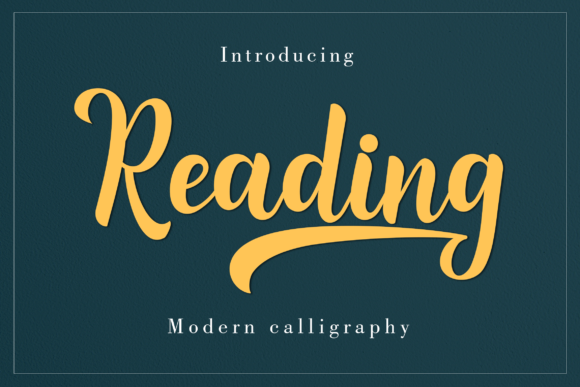
In a digital world bursting with text and imagery, the elegance of handwritten words can transport you to an era of profound beauty and heartfelt expression. Reading Script Font, a creation of Amarlettering, is an exquisite script font family that captures the essence of authenticity and transforms your creative projects into stunning masterpieces.
With its light and flowing curves, Reading Script Font evokes a sense of effortless grace and charm. Its delicate strokes and subtle imperfections lend an organic touch, reminiscent of the handwritten letters crafted with care and intention. Embrace the timeless beauty of cursive writing and let your words dance across the page, leaving a trail of elegance and sophistication in their wake.
Dive into the world of Reading Script Font and discover a symphony of visual delight. From whimsical invitations to heartfelt personal notes, from captivating social media posts to enchanting brand logos, this versatile font family adapts seamlessly to a myriad of creative endeavors. Unleash your imagination and let your words take on a life of their own, captivating your audience with an aura of sophistication and charm.
Experience the transformative power of Reading Script Font and elevate your creative projects to new heights. Its light and airy nature brings a touch of whimsy and playfulness, while its inherent elegance exudes a sense of luxury and refinement. Whether you're a seasoned designer or just starting your creative journey, Reading Script Font is your passport to a world of visual enchantment.